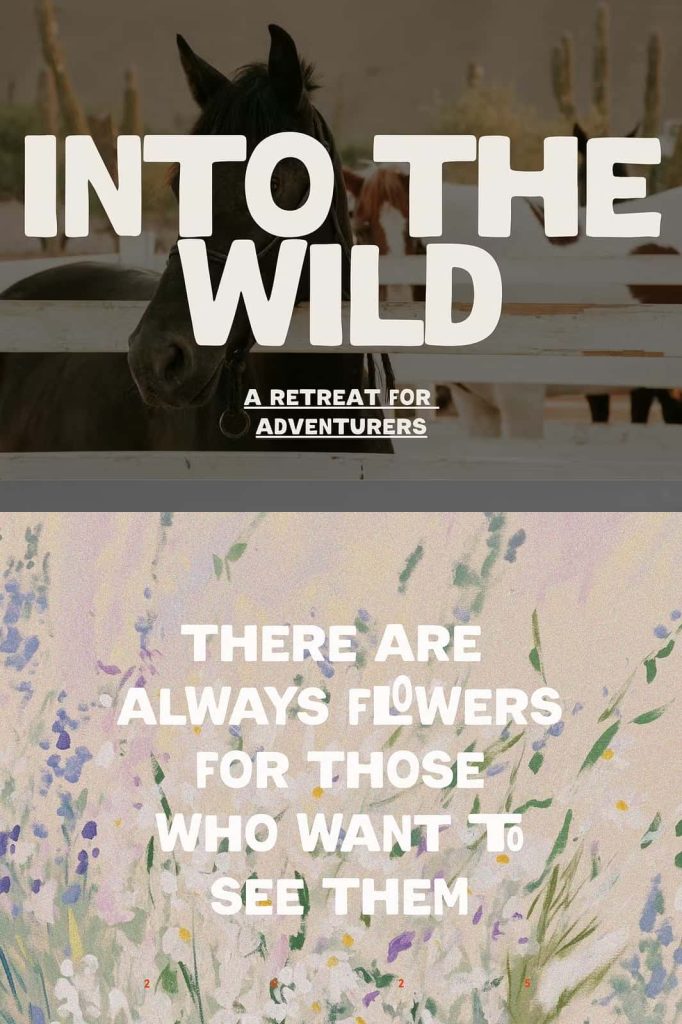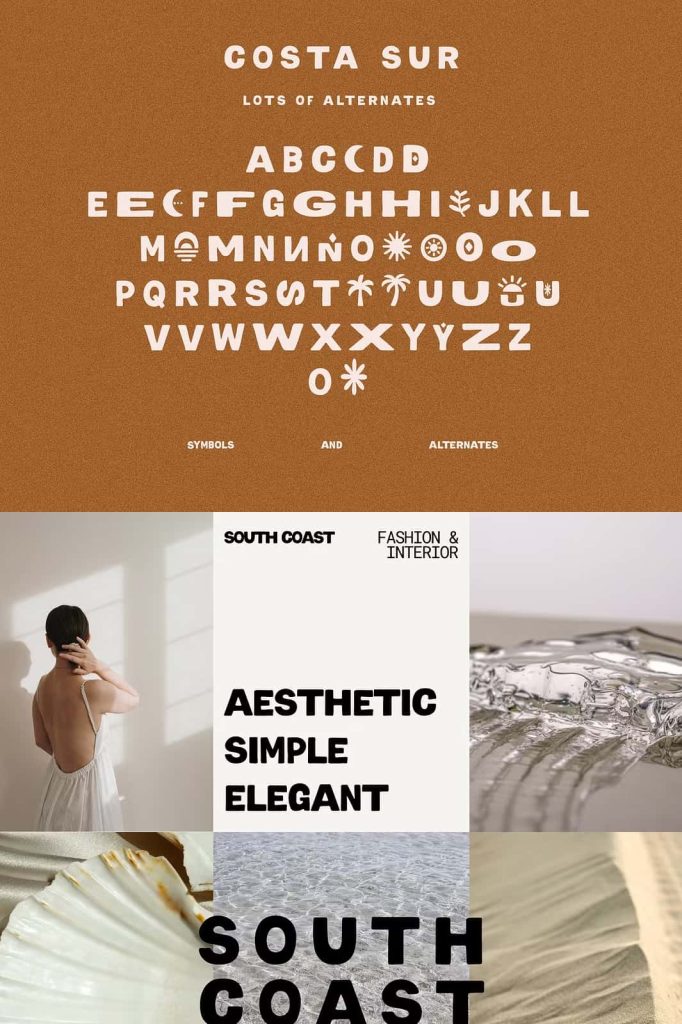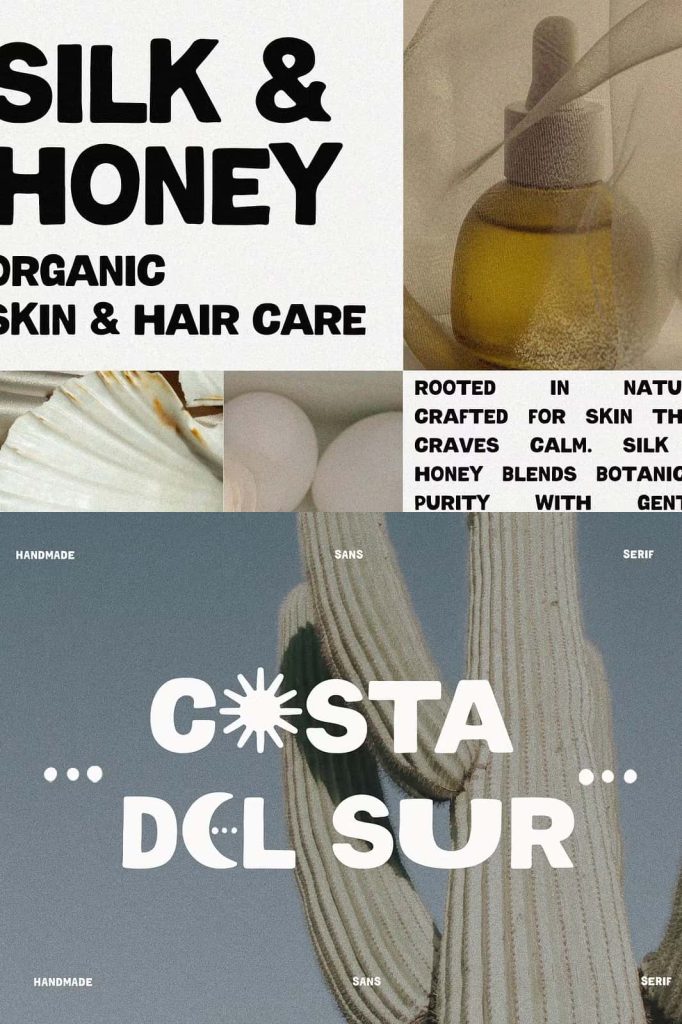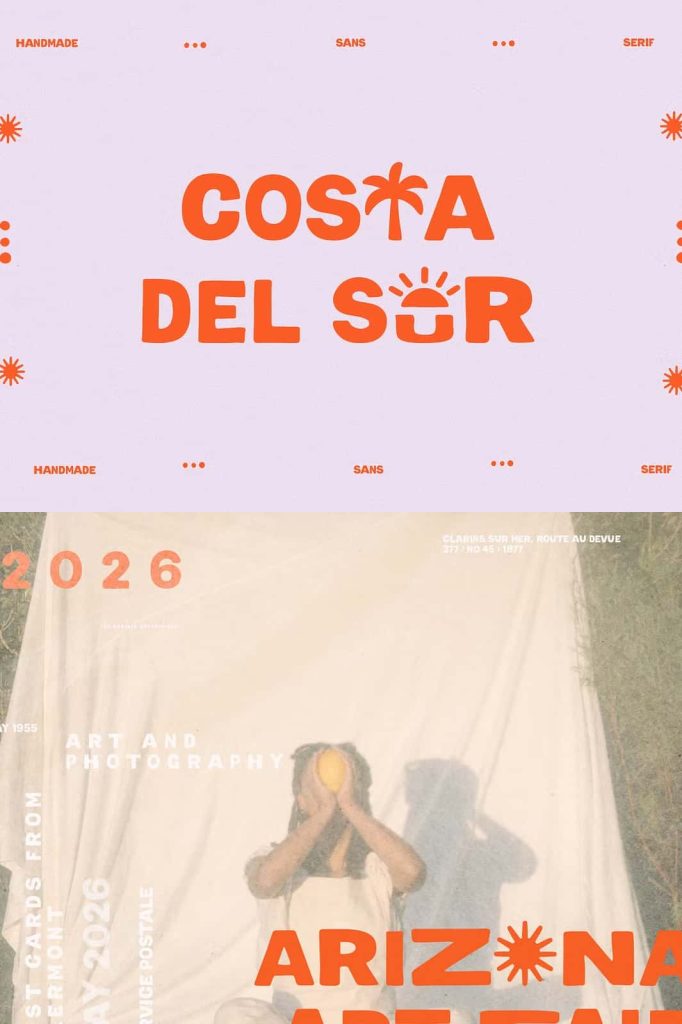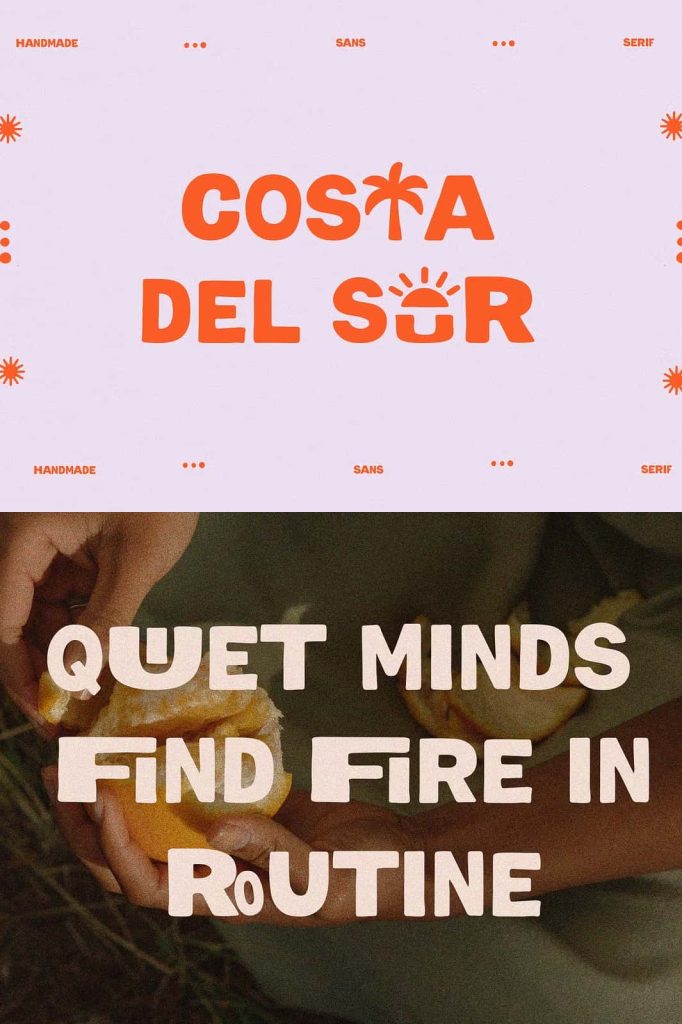
CostaSur: A Bold Handmade Sans Serif Font with Coastal Boho Style
Meet CostaSur, a bold handmade sans serif font that captures the warmth of sun-drenched days and the relaxed spirit of coastal living. This typeface blends strong, confident letterforms with a soft handwritten touch, creating a unique balance between structure and personality. Designed for creatives who want their work to feel authentic and effortlessly stylish, CostaSur brings a fresh and modern bohemian vibe into every project.
Inspired by carefree summer moments and handcrafted aesthetics, CostaSur delivers more than just clean typography. It introduces subtle imperfections that give your designs a natural, human feel. Whether you are working on branding, editorial layouts, or digital content, this font helps you create visuals that feel approachable, expressive, and full of character.
Bold Structure with a Soft Handmade Feel
CostaSur stands out with its bold and grounded structure. Each letter carries a strong presence, making your text clear and easy to read. At the same time, the handmade influence softens the overall appearance, adding warmth and personality to your typography.
This combination allows you to design with confidence while maintaining a relaxed and inviting tone. The font works equally well for large headlines and smaller body text, giving you flexibility across different types of projects.
Key Characteristics
- Bold sans serif style with handcrafted details
- Balanced design for readability and personality
- Modern look with a relaxed bohemian influence
- Suitable for both headlines and body text
Inspired by Bohemian Summers and Coastal Living
CostaSur draws inspiration from the natural beauty of coastal landscapes and the artistic freedom of bohemian culture. Its design reflects sunlit beaches, ocean breezes, and the charm of handmade creations. This inspiration translates into a typeface that feels light, expressive, and full of life.
Designers can use CostaSur to evoke a sense of calm, creativity, and authenticity. It fits perfectly with brands and projects that want to communicate a relaxed yet confident identity.
Perfect for Lifestyle and Creative Brands
- Fashion and lifestyle branding
- Travel and coastal-themed projects
- Wellness and creative businesses
- Artistic and personal branding
Playful Ligatures and Unique Symbol Alternates
CostaSur includes a set of playful ligatures that enhance the natural flow of your text. These ligatures create smooth connections between letters, giving your typography a more organic and visually pleasing appearance.
In addition, the font offers unique symbol alternates inspired by nature and summer elements. You can access decorative icons such as palm trees, sunbursts, and flowers to enrich your designs. These elements allow you to add personality and storytelling without needing extra graphic assets.
Creative Features
- Custom ligatures for smooth typography flow
- Decorative symbols including palm trees and sunbursts
- Floral elements for added visual interest
- Enhanced creative flexibility for designers
Versatile for Print, Digital, and Social Media
CostaSur adapts seamlessly to various design environments. It performs beautifully in print materials such as posters, packaging, and editorial layouts. At the same time, it shines in digital formats, including websites, social media graphics, and online branding.
Its bold yet relaxed style makes it especially effective for social media content. You can create vibrant posts, eye-catching headlines, and engaging visuals that connect with your audience instantly.
Recommended Uses
- Logo and branding design
- Social media content and campaigns
- Posters and print materials
- Website headers and digital layouts
Bring a Breezy Nu Edge Vibe to Your Designs
CostaSur delivers a fresh and modern interpretation of handmade typography. Its bold structure, playful details, and coastal inspiration combine to create a typeface that feels both grounded and free-spirited. This unique balance allows you to design with confidence while expressing creativity and individuality.
Choose CostaSur when you want your designs to feel relaxed, stylish, and full of life. It transforms simple text into a visual experience that captures the essence of summer, creativity, and modern design.